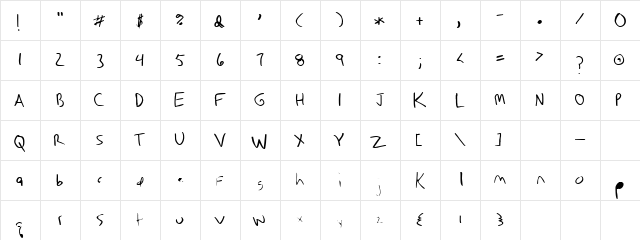
AndyHand Normal
Design Context for AndyHand Typeface
AndyHand flows with the natural rhythm of handwritten lettering, making it ideal for designs that call for warmth and personal expression.
Font Pairing: Combine AndyHand with a simple geometric sans for maximum contrast — the tension between flowing curves and clean structure is a classic typographic pairing.
Pro Tip: Use AndyHand for short runs of text — names, titles, or taglines. Extended body copy in script faces tires the eye quickly.